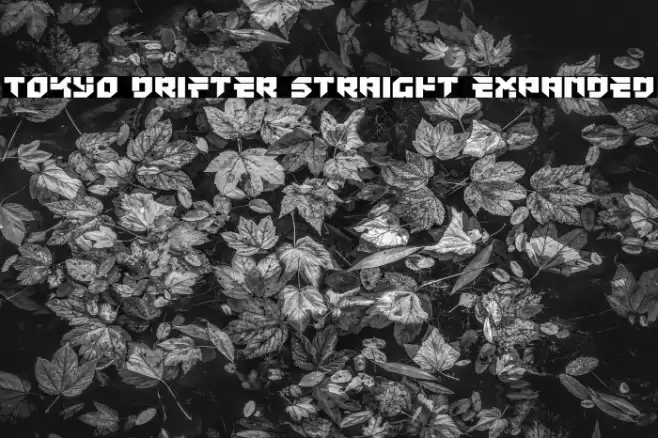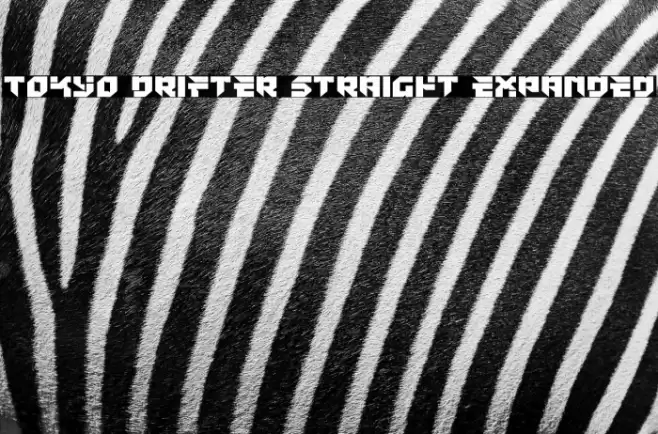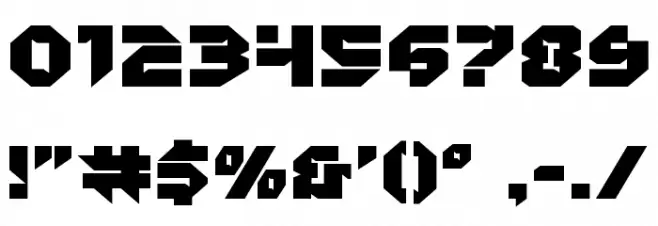
Tokyo Drifter Straight Expanded Font
Tokyo Drifter Straight Expanded Description
This font features a bold, geometric design with sharp, angular edges and a futuristic aesthetic. The characters are constructed with straight lines and sharp angles, giving it a distinct, modern look. The uppercase and lowercase letters maintain a consistent style, with each character exhibiting a blocky, robust form. The numbers and special characters follow the same design principles, ensuring uniformity across the font. The overall appearance is striking and attention-grabbing, making it ideal for projects that require a strong visual impact.
A bold, geometric font with sharp angles and a futuristic style from Uncategorized fonts.
- Proposed Projects: Ideal for sci-fi themed designs, video game titles, posters, and branding that requires a modern and edgy look.